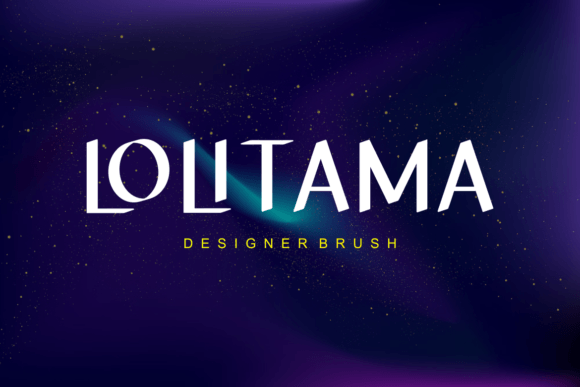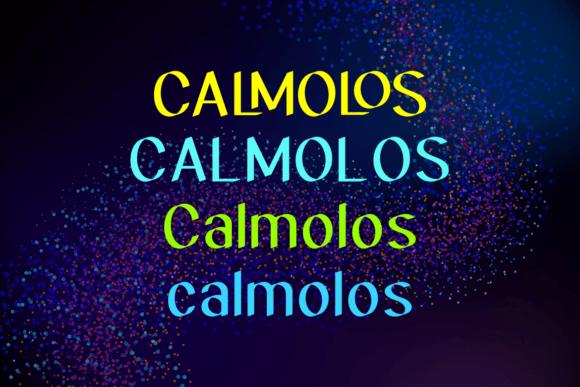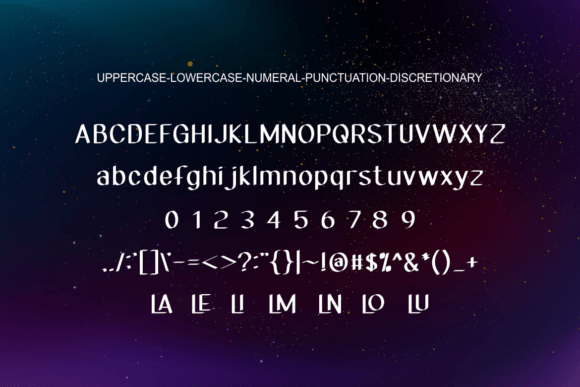
Discover the Timeless Charm of Calmolos Font
Have you ever found yourself stuck on a design project, searching for the perfect font to bring your vision to life? That’s exactly what happened to me when I was working on a wedding invitation for a close friend. Hours of browsing through different fonts, and just when I was about to give up, I stumbled upon Calmolos Font. Its elegant and bold serif style immediately caught my eye, and I knew I had found the perfect match.
Calmolos Font is a versatile and sophisticated font designed to elevate any design project. Whether you’re creating beautiful stationery, eye-catching social media posts, or gorgeous wedding invitations, Calmolos Font is the perfect choice. Its timeless charm makes it a valuable asset for designers, allowing them to add a touch of sophistication and elegance to their work.
Calmolos Font Key Features
- Font Size: The font has 6 styles, including Thin, Light, Regular, Medium, Bold, and Black, each with a unique character and feel.
- Unique Characteristics: Calmolos Font features a unique blend of modern and traditional design elements, with a focus on clean lines, geometric shapes, and elegant letterforms.
Calmolos Font Review
I recently had the chance to work with Calmolos Font, and I must say it’s a unique addition to any design project. ✨ One of the things I appreciate about this font is its elegant, handwritten feel. It’s perfect for creating a sense of warmth and approachability in branding or advertising materials.
Another strength of Calmolos Font is its versatility. It comes in a range of weights, from light to bold, making it suitable for various design applications. Whether you’re creating a heading, title, or body text, Calmolos Font is up to the task.
- ✨ Elegant, handwritten feel that adds warmth and approachability
- ✨ Versatile, with a range of weights suitable for various design applications
- ✨ Great for creating a sense of personality in branding or advertising materials
- ⚠️ May not be suitable for formal or professional contexts, where a more traditional font is preferred
- ⚠️ Some characters may not be easily readable, particularly in smaller font sizes
Overall, I think Calmolos Font is a solid choice for designers looking to add some personality to their work. While it may not be perfect for every project, it’s definitely worth considering for the right application.
Common use cases for Calmolos Font include:
- Designing calming and soothing brand materials.
- Creating typography-heavy posters and prints.
- Adding a touch of elegance to digital interfaces.
For optimal results, use Calmolos Font in combination with light colors and minimal ornamentation to create a sense of serenity and sophistication.